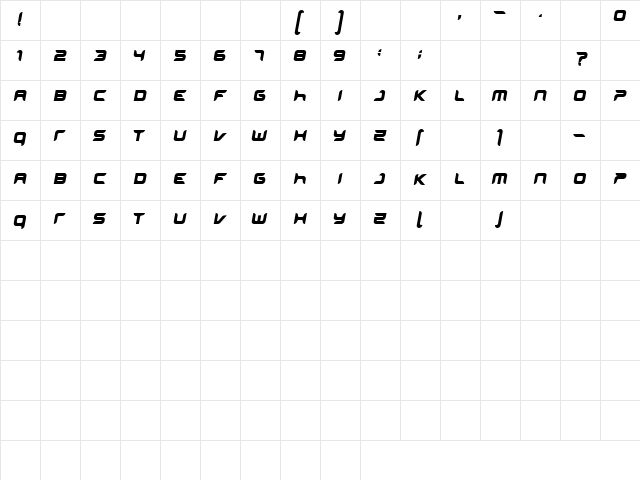
miniskap Regular
Design Context for miniskap Typeface
miniskap is a composed and adaptable typeface that performs quietly and consistently across a wide range of design contexts.